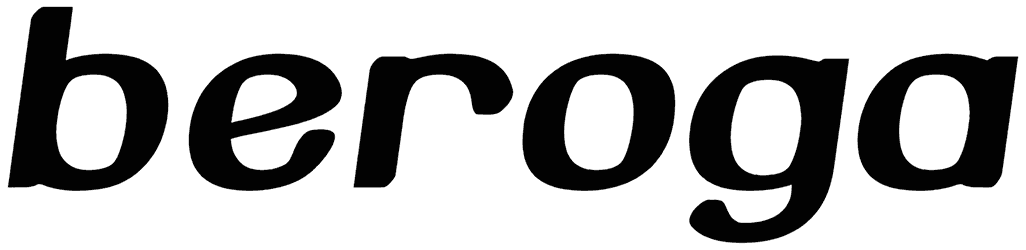
Beroga Font
Designed byPeter Wiegel
If you want to use a breathtaking, fancy font that looks different from other casual masterpieces, we would like to offer you a wonderfully sans-serif font such as Beroga that comes with a sense of freshness, innovation, tenderness, and sympathy.
Due to its magical style, it would look perfect on announcements, flyers, gift cards, greeting cards, and invitations. Needless to say that uppercase letters are not included in this font.